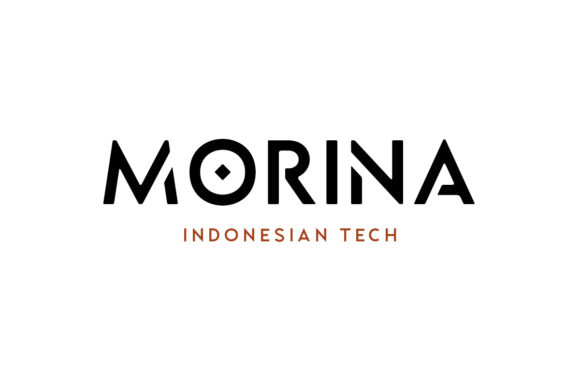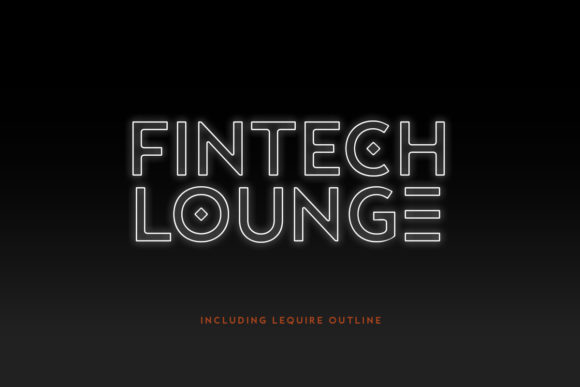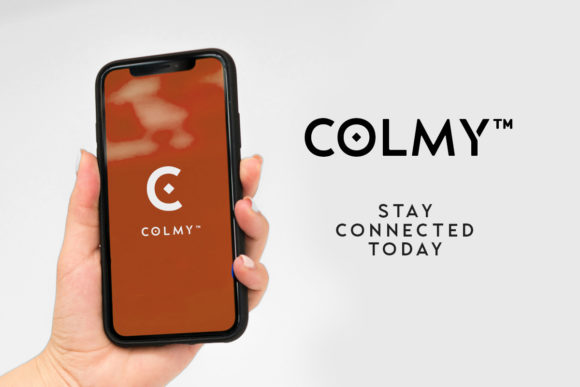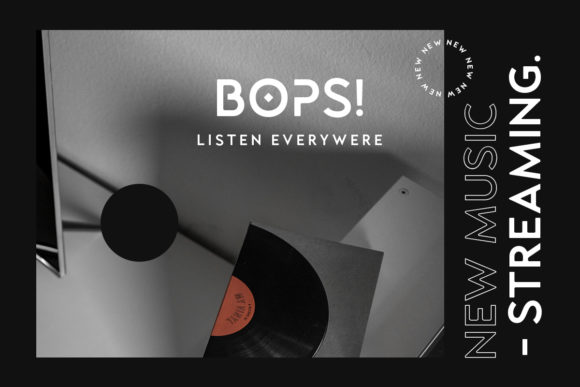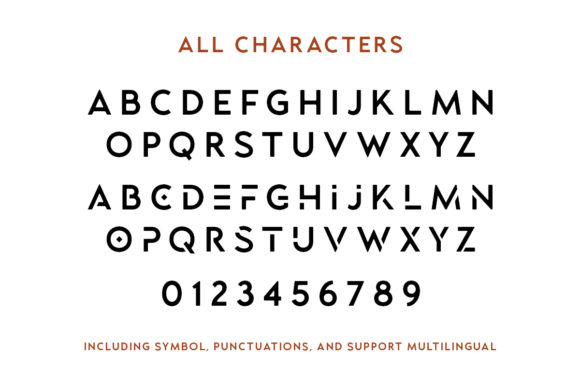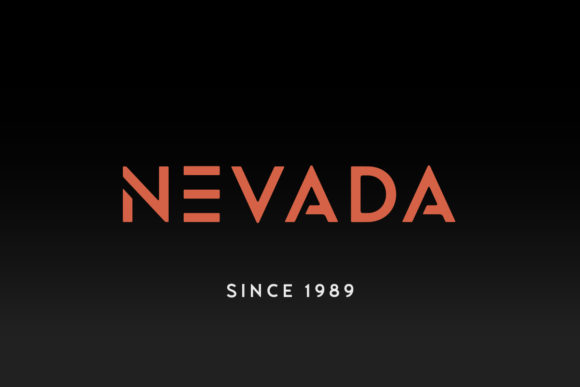
Introduction to Lequire Font
As a designer, you’ve probably had those moments when a single font can make or break the entire aesthetic of your project. You’re staring at a blank canvas, trying to bring your creative vision to life, and suddenly, the right font pops into your mind – it’s like a breath of fresh air! For many designers, that font is Lequire Font, a modern sans serif design that screams futuristic and sleek.
What makes Lequire Font so valuable to designers? Its high-quality design makes it a go-to resource for creative projects that demand attention. Whether you’re working on a branding project or crafting a digital experience, Lequire Font is the perfect addition to your design arsenal. And the best part? It’s available for free download, making it an accessible design resource for designers of all levels.
- Unique characteristics: Lequire Font features a unique blend of modern and vintage elements, making it perfect for creative projects that require a touch of elegance.
Honest Review: Lequire Font
I recently had the chance to work with the Lequire Font, and I’m excited to share my thoughts with you. As a designer, I’m always on the lookout for high-quality design resources that can elevate my creative projects.
Here are some things that work well with the Lequire Font: ✨
- High-quality typography: The Lequire Font features clean and modern lines that make it perfect for a wide range of design applications.
- Limited character set: The Lequire Font only includes a limited character set, which may not be suitable for designers who need a wide range of characters.
- No bold or italic versions: This font only comes in regular weight, which may not be ideal for designs that require bold or italic text.
Overall, I’m impressed with the Lequire Font. It’s a great option for designers who need a high-quality, modern font for their creative projects. While it has some limitations, I believe it’s a valuable resource that can help take your designs to the next level.
Tips for Getting the Most Out of Lequire Font
Use Lequire Font in combination with other design elements to create a cohesive and visually appealing design.
Experiment with different font sizes, colors, and styles to add depth and interest to your design.
Common Use Cases for Lequire Font
Lequire Font is ideal for use in corporate branding, marketing materials, and creative projects that require a high level of sophistication and elegance.
Whether you’re a seasoned designer or just starting out, the Lequire Font is an excellent addition to your design arsenal. Its versatility and high-quality design make it an ideal choice for a wide range of creative endeavors. So why not give it a try? Download the Lequire Font today and discover the endless possibilities it has to offer. With its sleek and sophisticated design, it’s sure to take your projects to the next level.